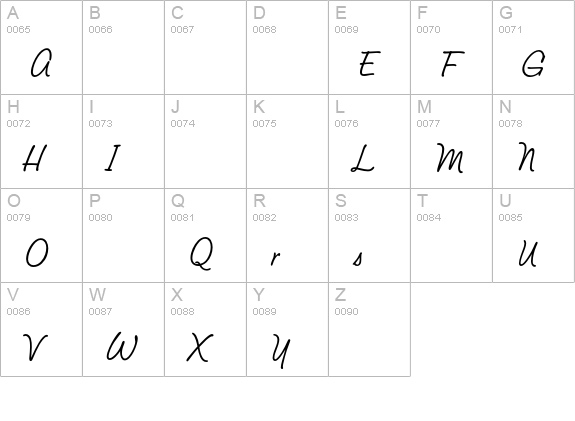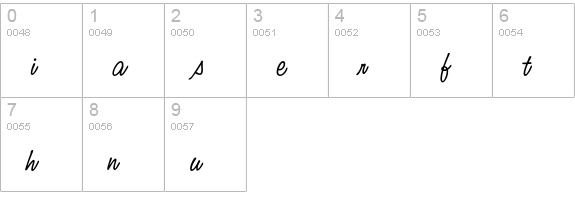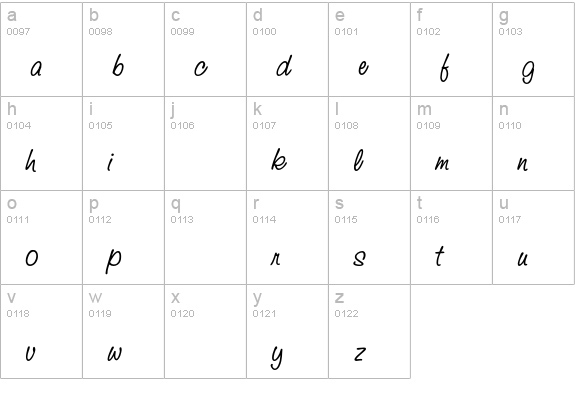
StudioScriptEF-Alternative Font Details
Introducing StudioScriptEF-Alternative, a unique and elegant font that is perfect for adding a touch of sophistication to your designs. This font features stylish and modern letterforms with a slightly alternative twist, making it stand out from the crowd. Whether you are working on branding, invitations, or any other project, StudioScriptEF-Alternative is sure to make a statement. The best part? StudioScriptEF-Alternative is completely free to download! You can easily access this stunning font at FontsMarket.com and start using it in your projects right away. Don't miss out on the opportunity to enhance your designs with this beautiful and versatile font. Download StudioScriptEF-Alternative today and let your creativity shine!